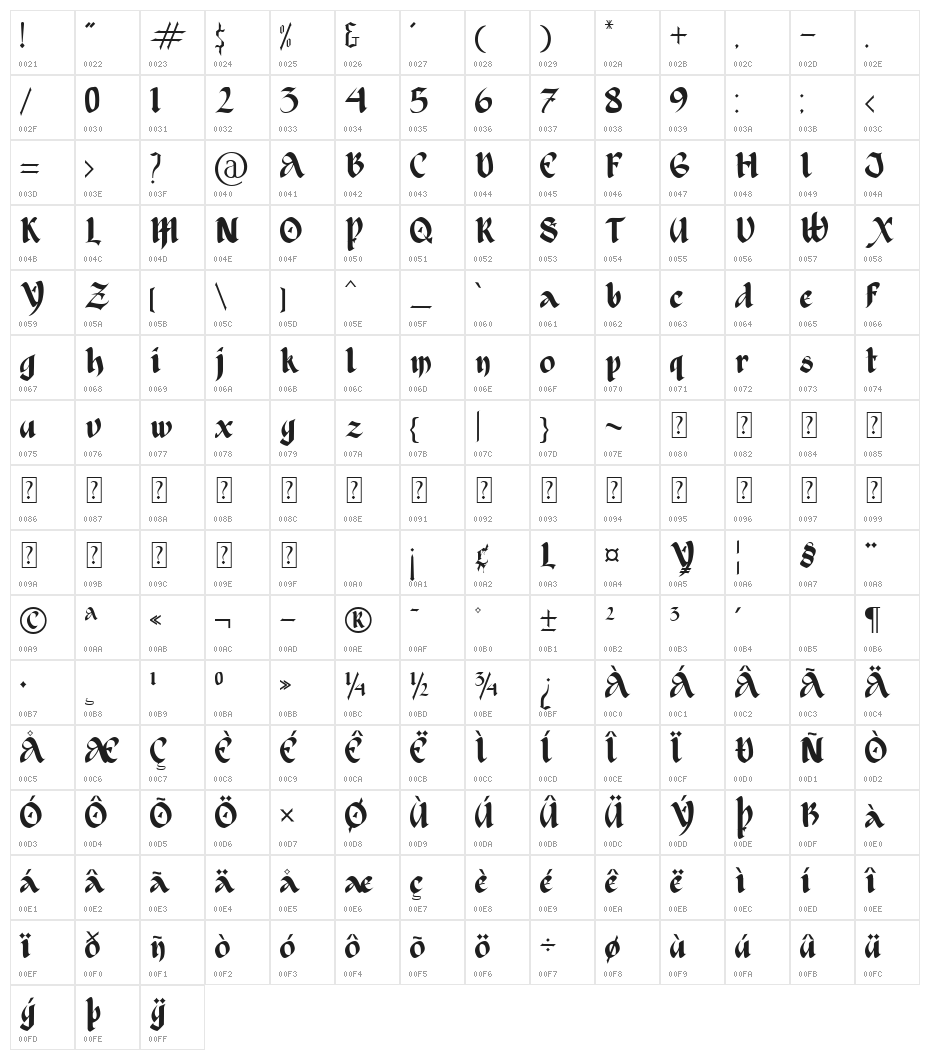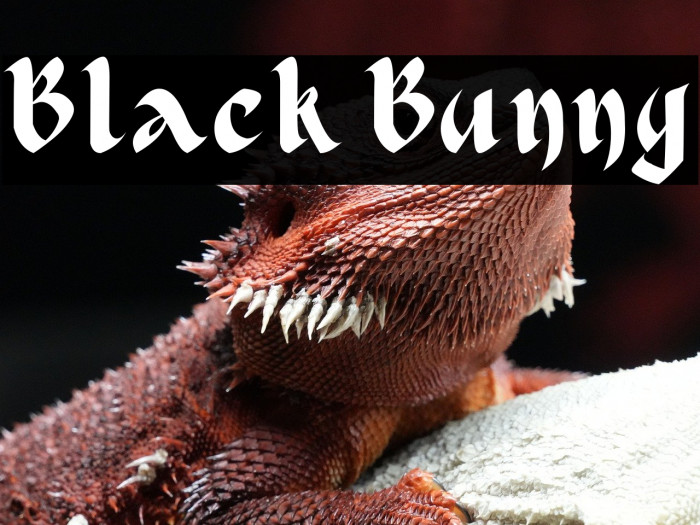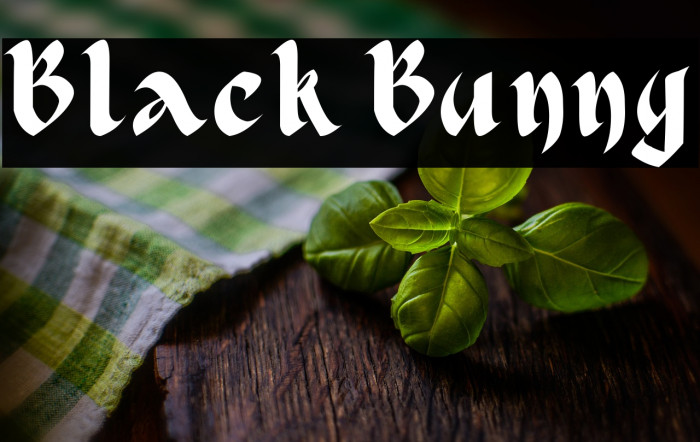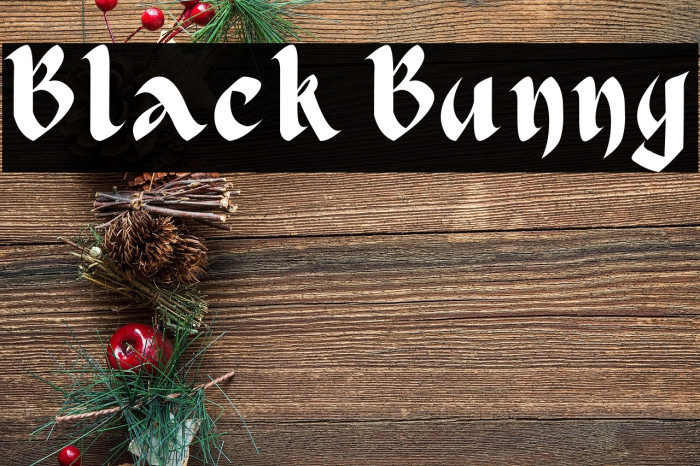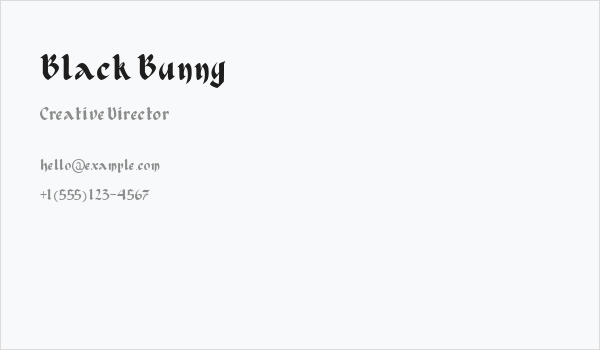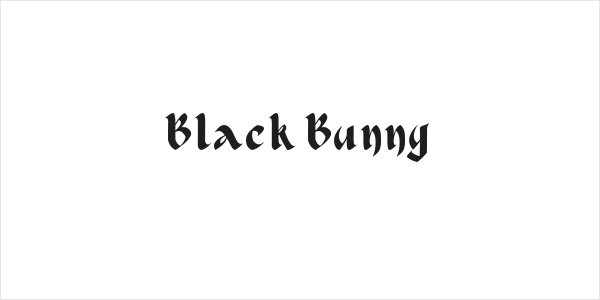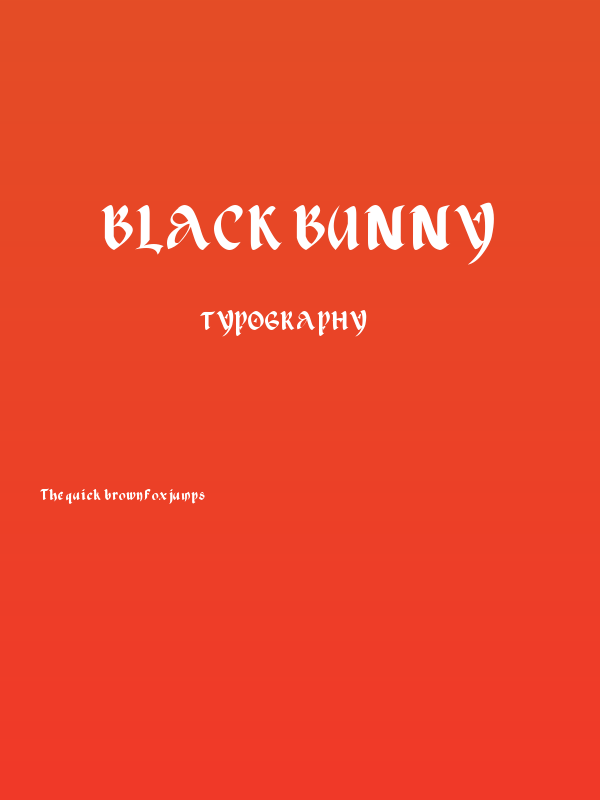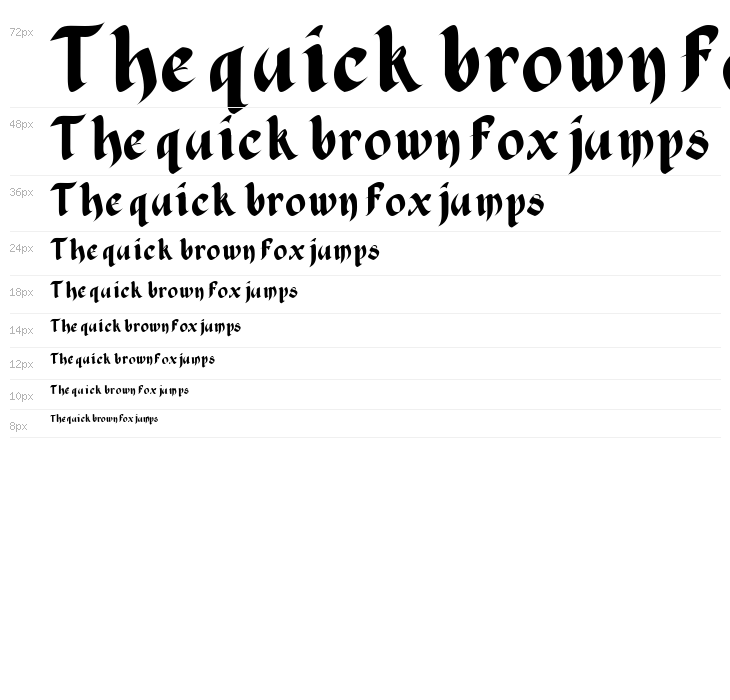
Black Bunny Font
This font features a bold and dramatic blackletter style, characterized by its sharp, angular lines and intricate detailing. The uppercase letters exhibit a strong presence with their tall, narrow forms and pronounced serifs. The lowercase letters maintain the same angular aesthetic, providing a cohesive look across the alphabet. Numbers are designed with a similar flair, ensuring consistency throughout. Special characters are crafted with the same attention to detail, making them suitable for decorative purposes. The overall design is reminiscent of medieval script, offering a sense of tradition and history.
| Use Case | Headlines, Logos, Decorative |
| Proposed Projects | Ideal for projects requiring a historical or gothic touch, such as book covers, posters, or branding for vintage-themed products. |